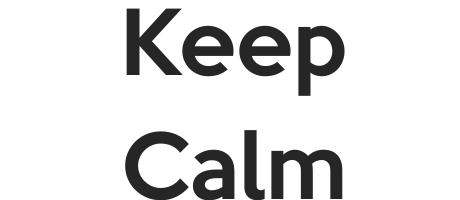
Keep Calm
Keep Calm by Keith Bates • © 2011, 2017 www.k-type.com • The Keep Calm family is based on the twelve available uppercase letters of the Keep Calm and Carry On poster and on similar lettering from the other two posters in the series. |